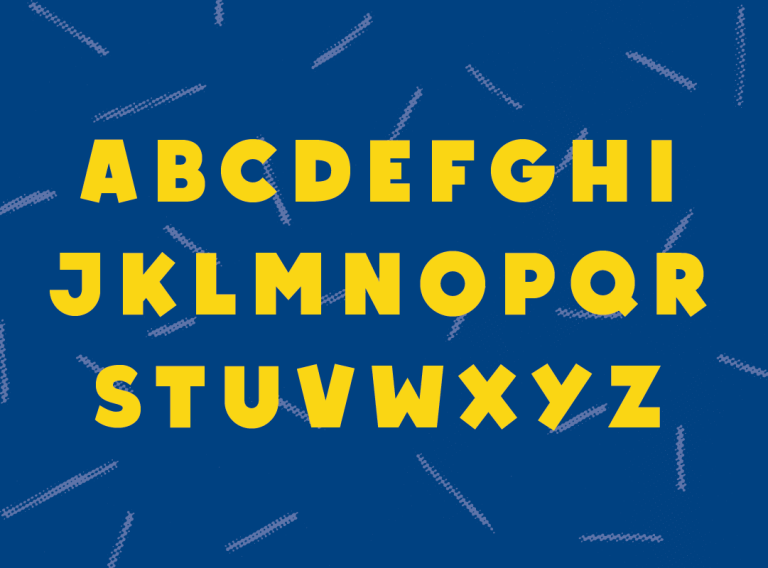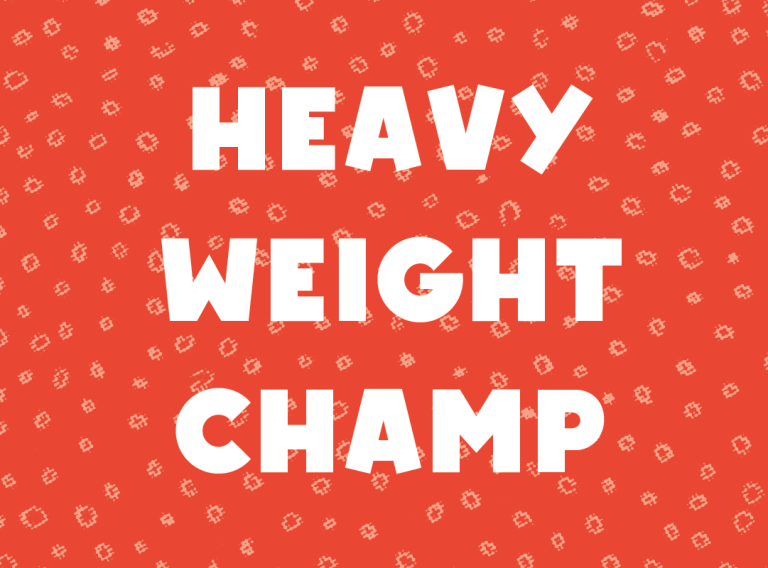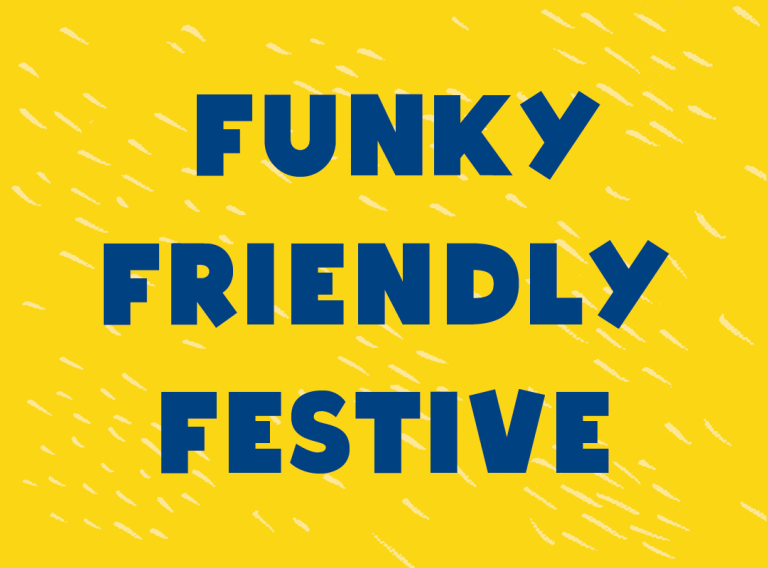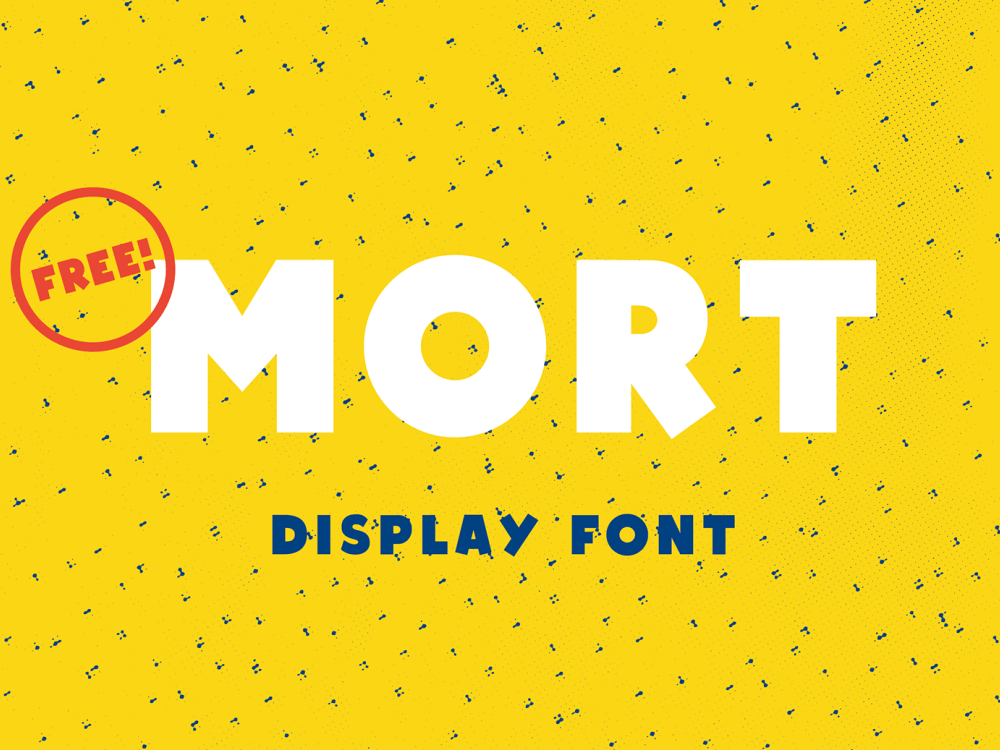
Mort: Funky Font
Mort is free funky font that can be good choice for your next design project. It is a chunky personality-filled display font that ideal for poster, print, branding, advertising and more